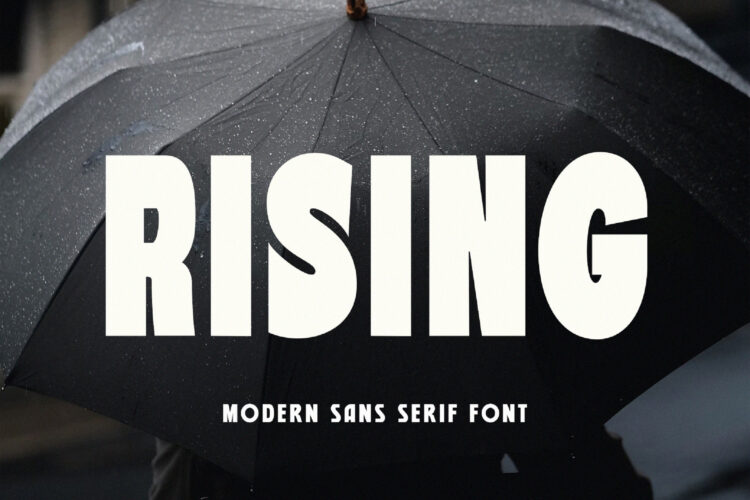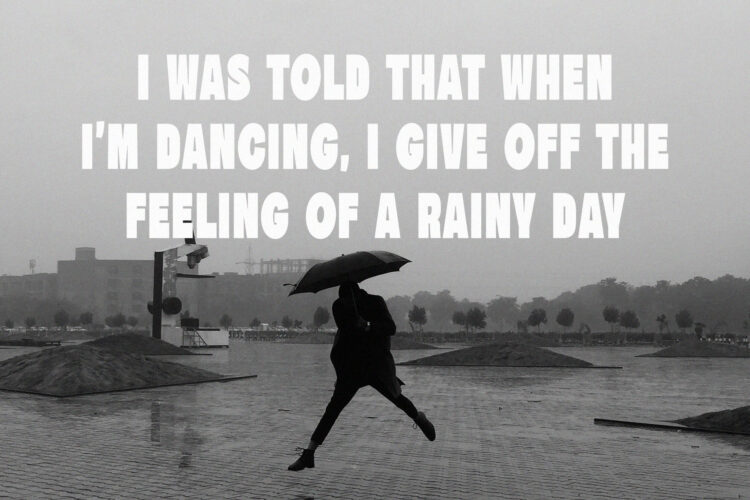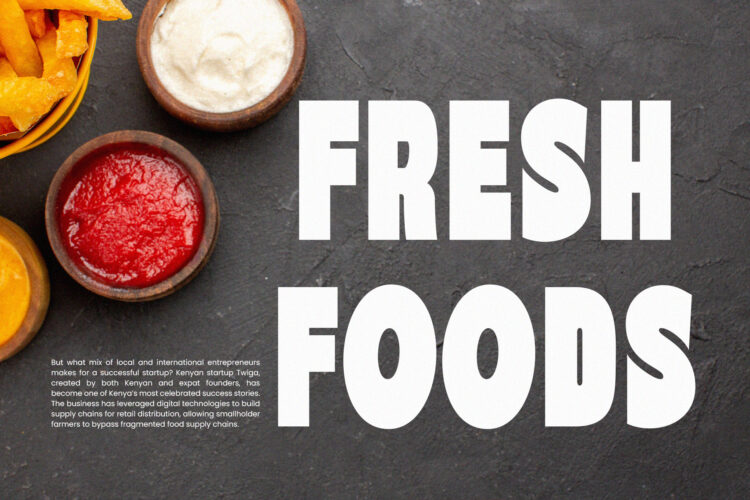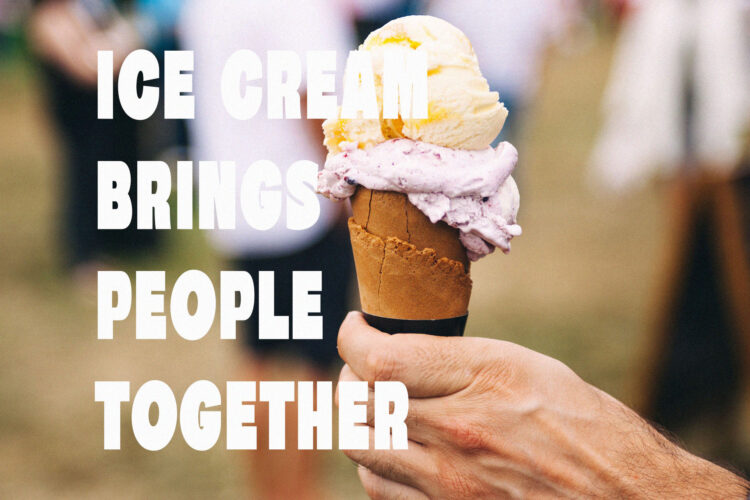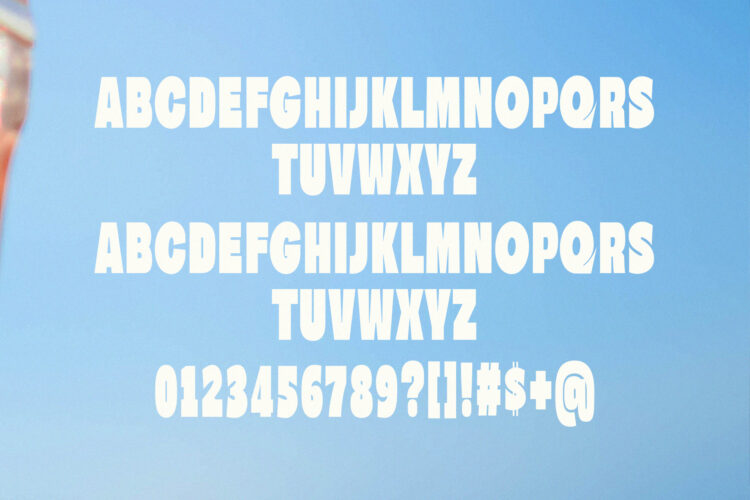
Introducing our new Rising, modern sans serif font with elegant style this is perfect for branding, logos, invitation, magazines, product packaging and more.
Rising – Modern Sans Serif Font